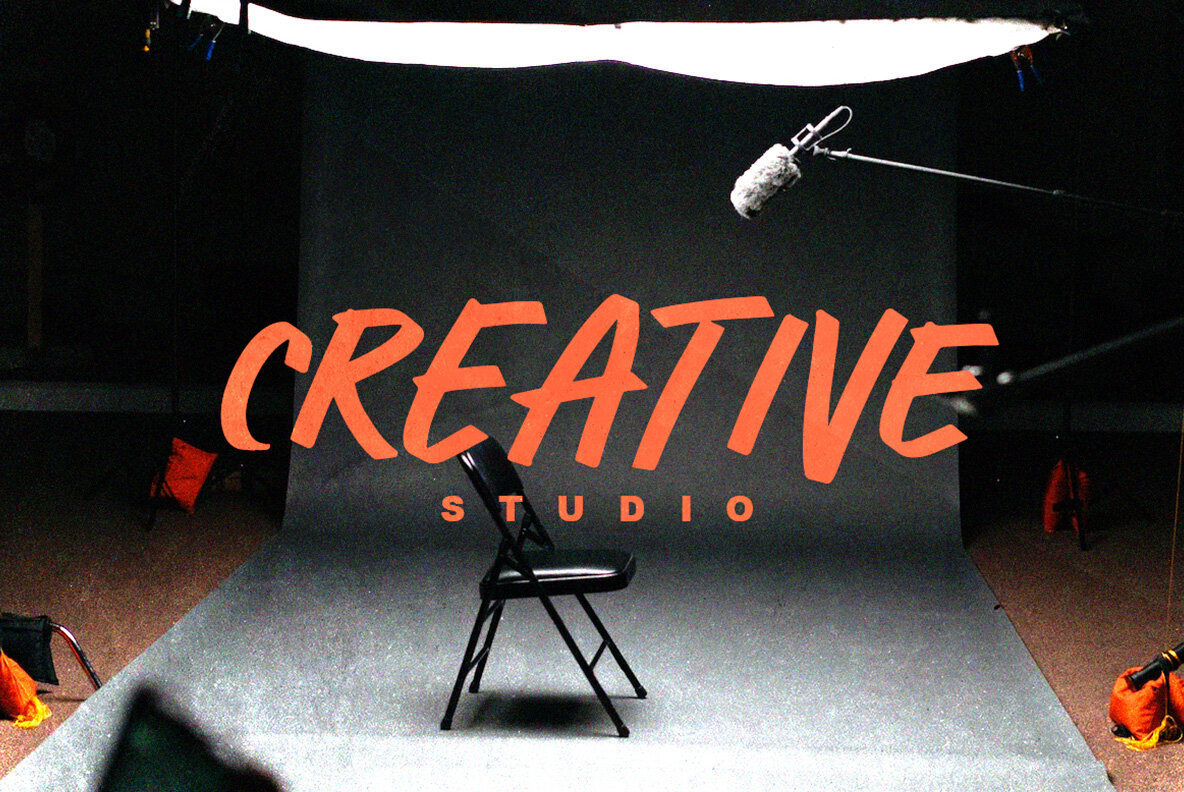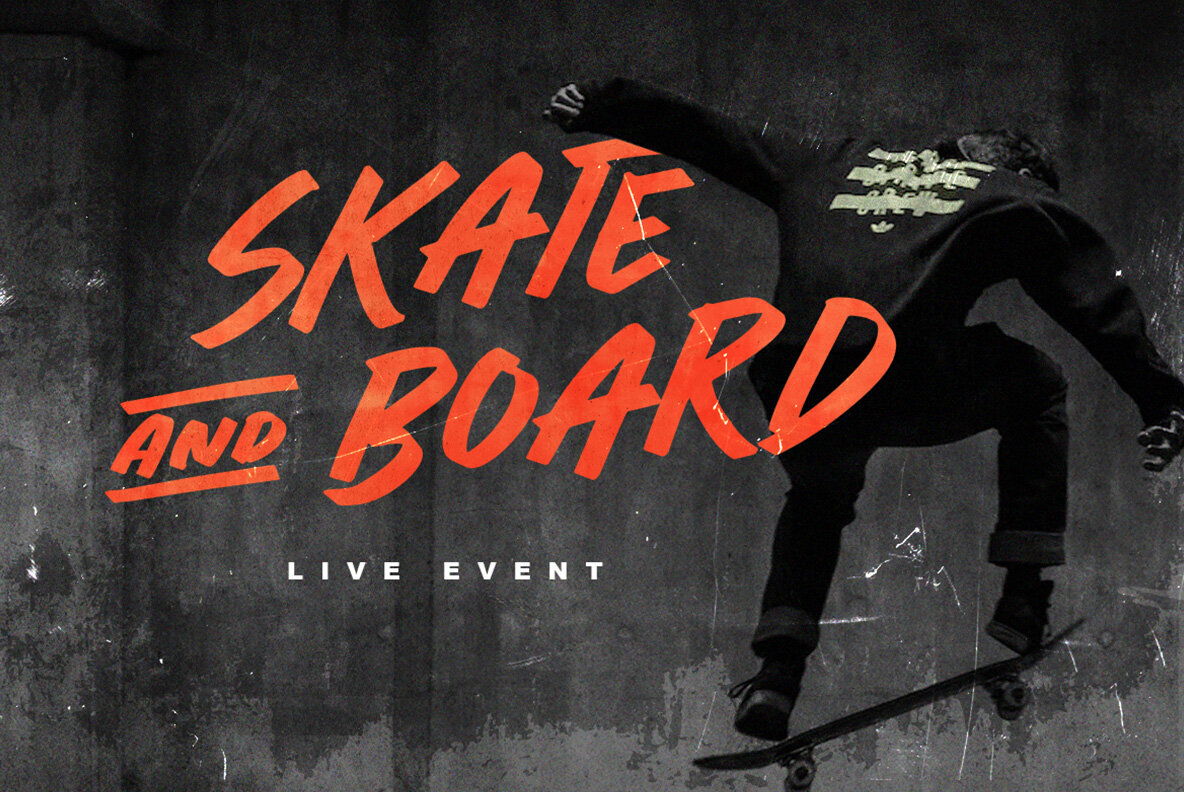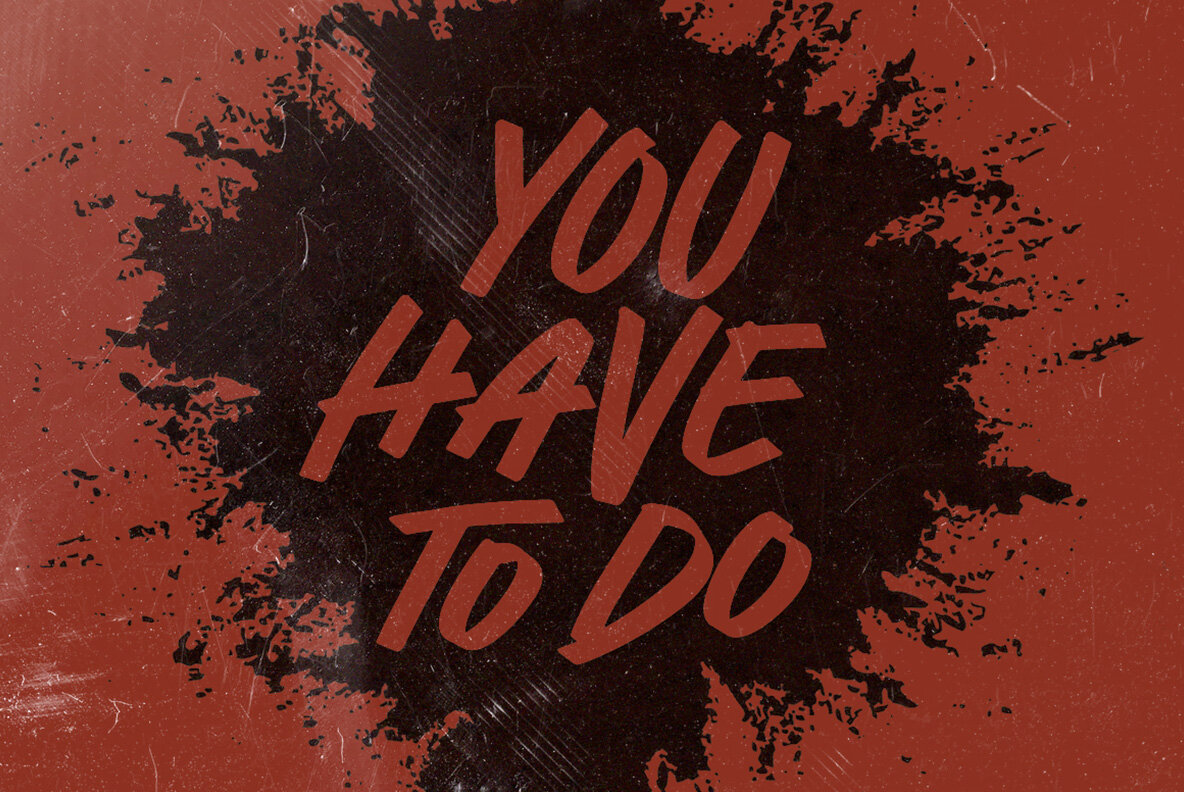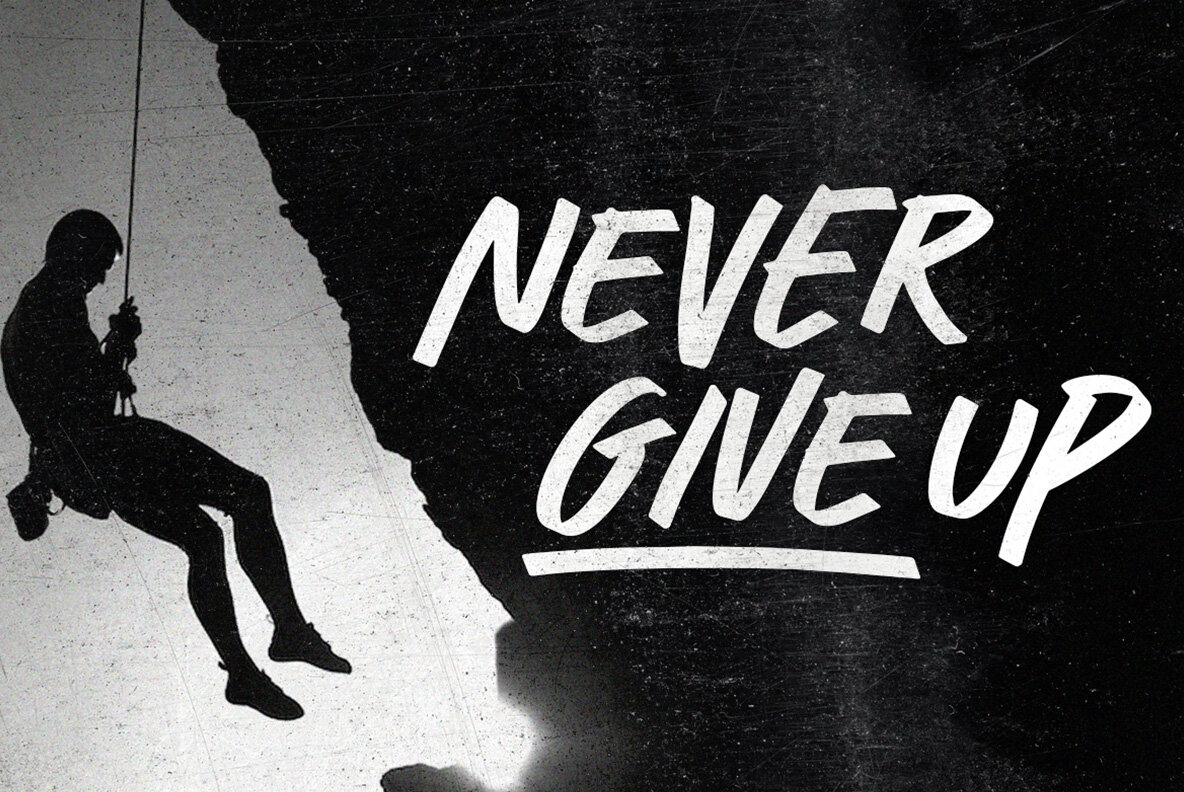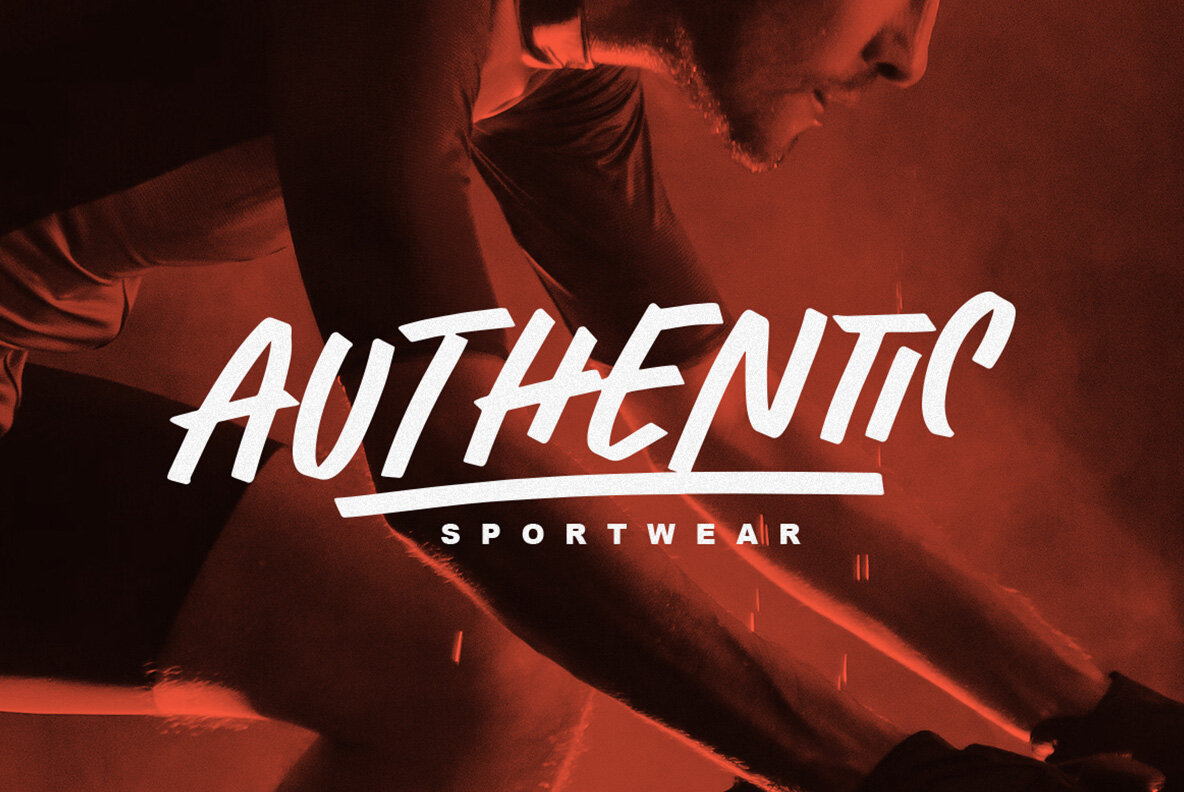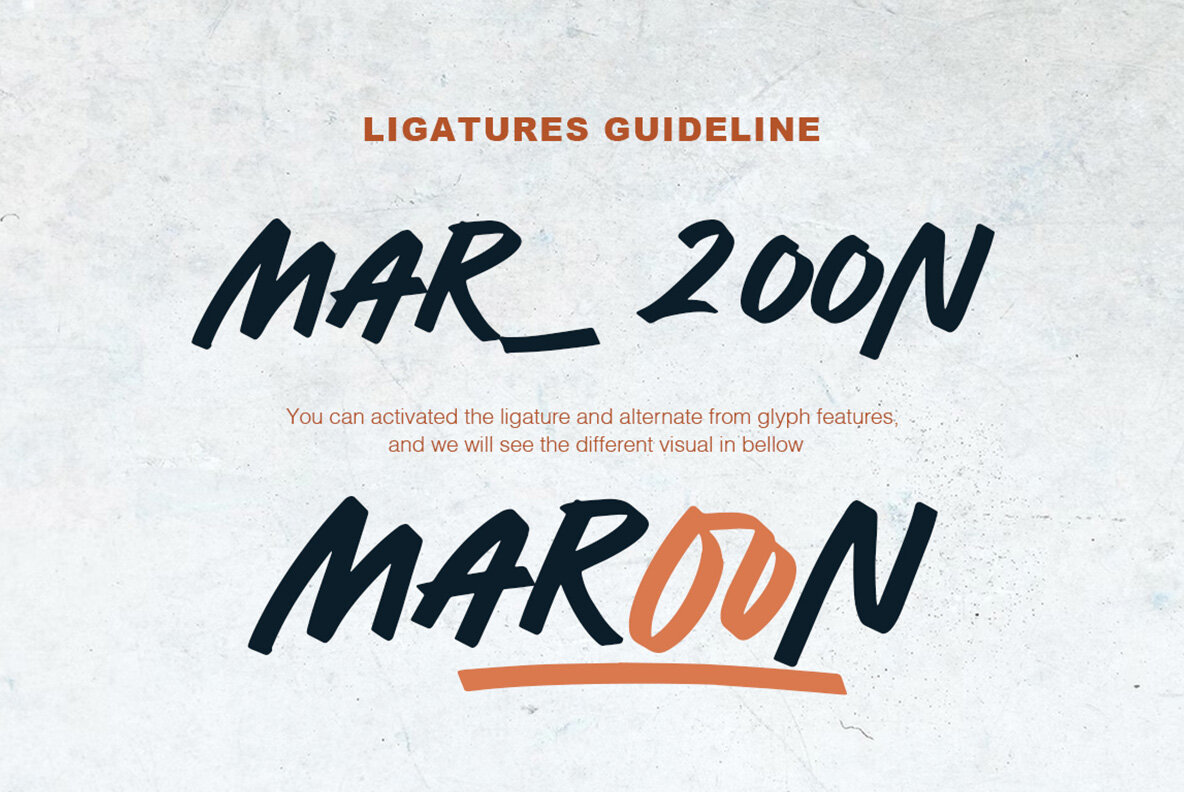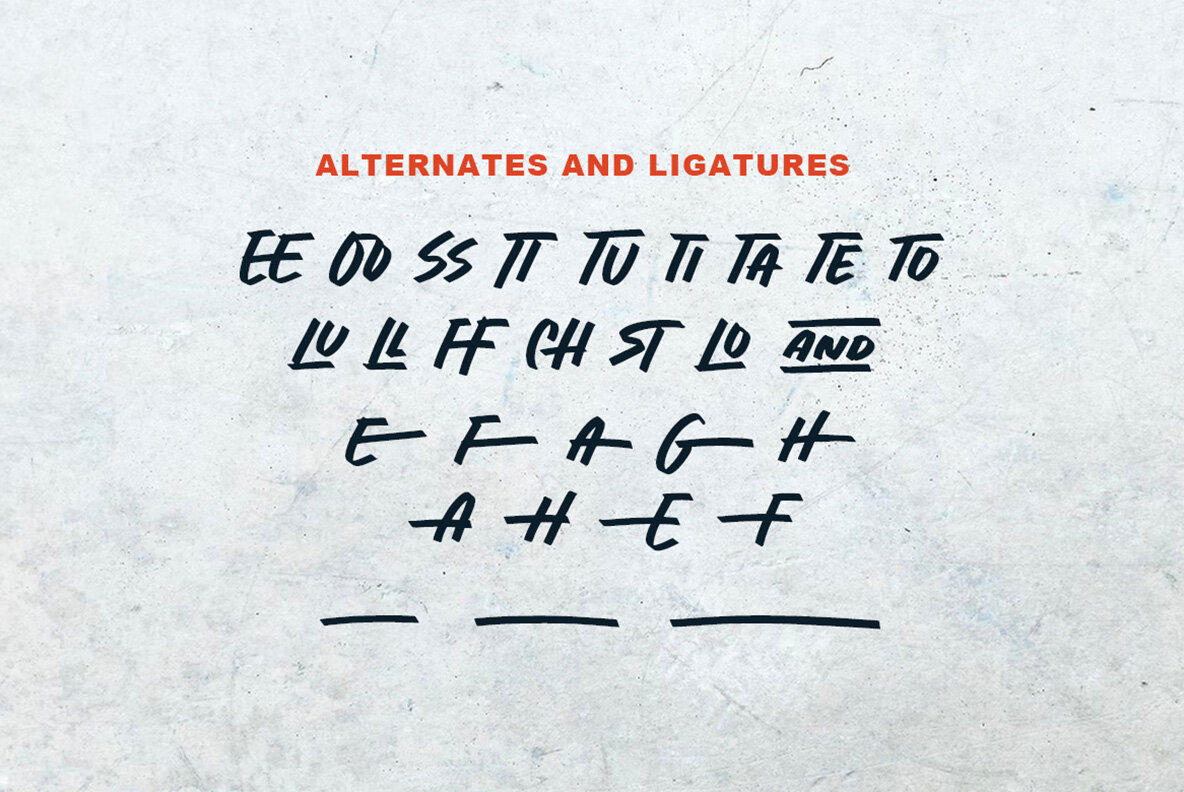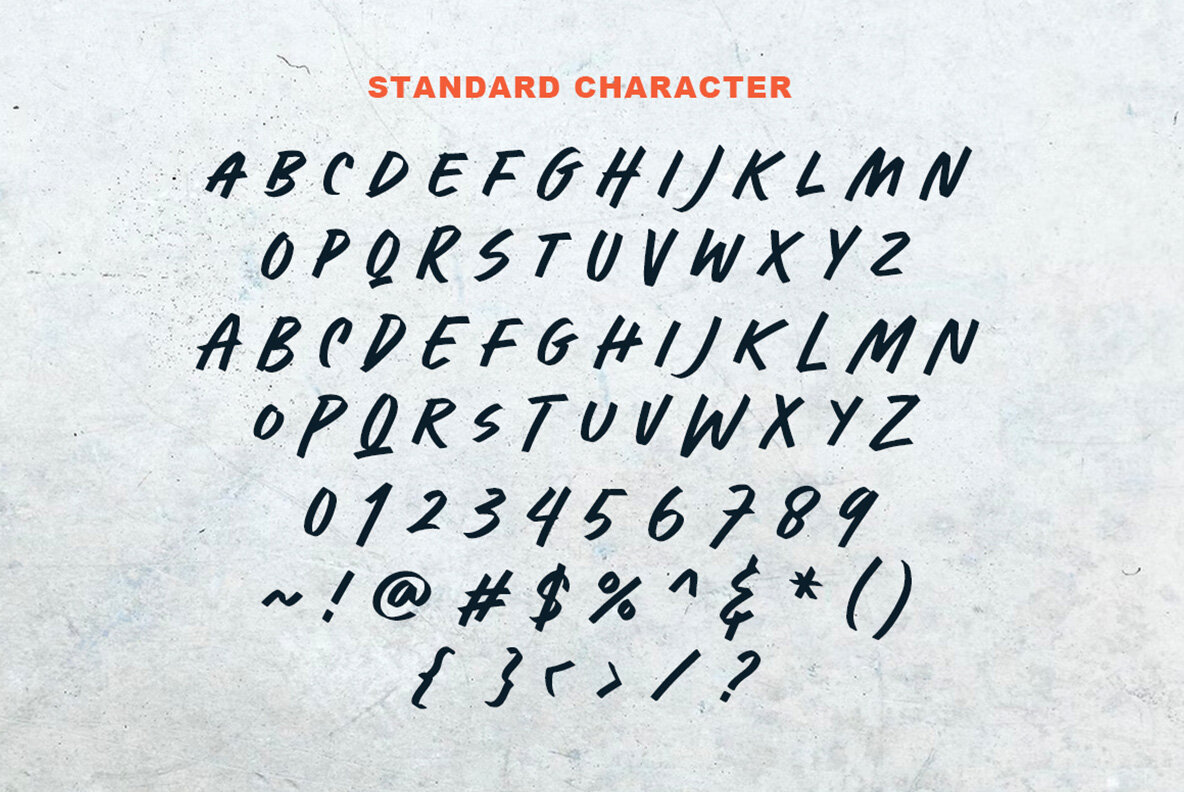
Honest Punch Font
Honest Punch Regular
The Honest Punch font by Sarid Ezra showcases a bold and engaging design, making it ideal for taglines and branding ventures. Its clarity and readability ensure that it leaves a memorable impression, particularly in quotable text. Whether you're crafting a brand identity or seeking a striking headline, Honest Punch is versatile in delivering a strong visual statement.Honest Punch: A Robust Font for Impactful Designs